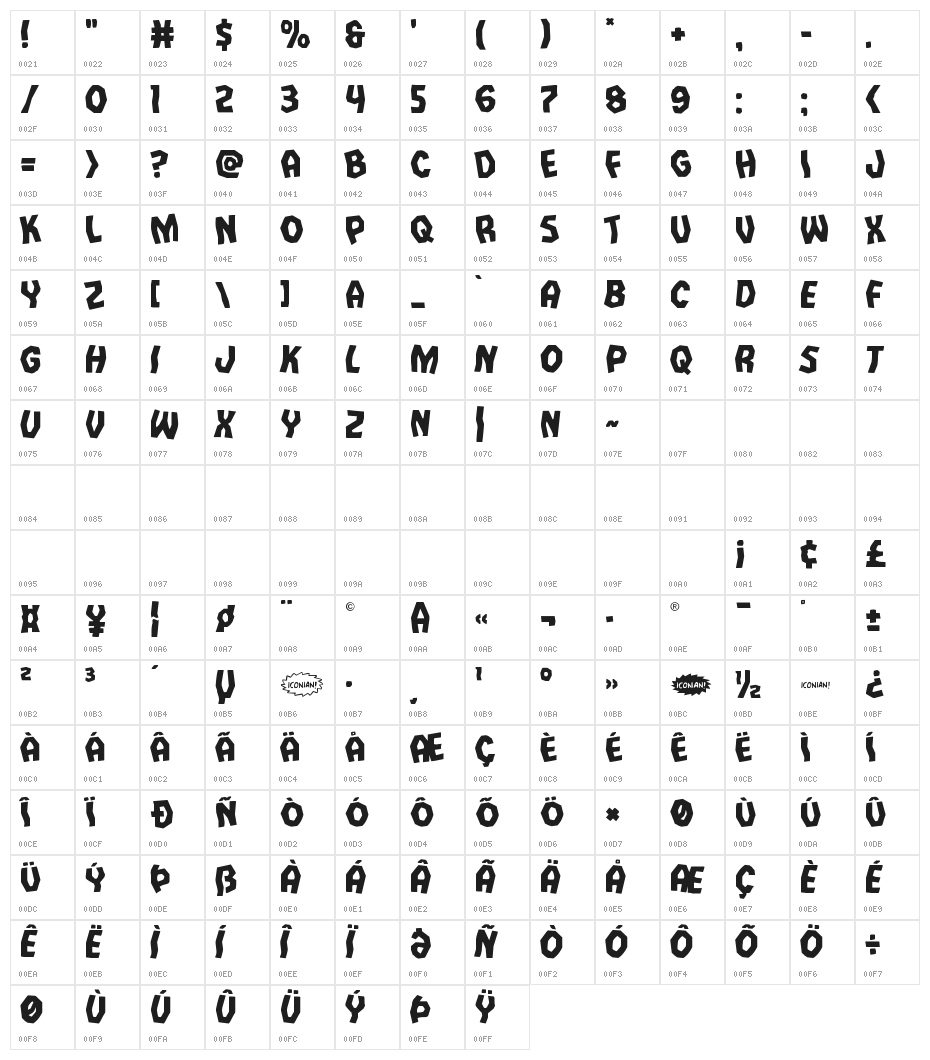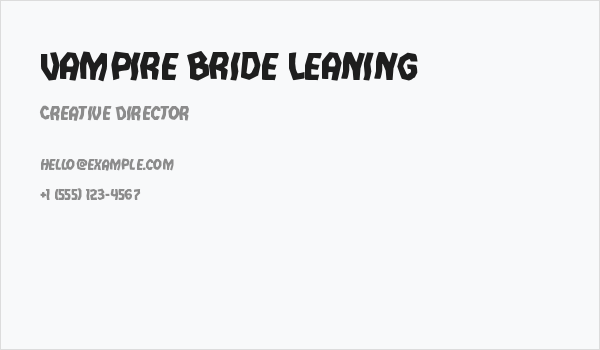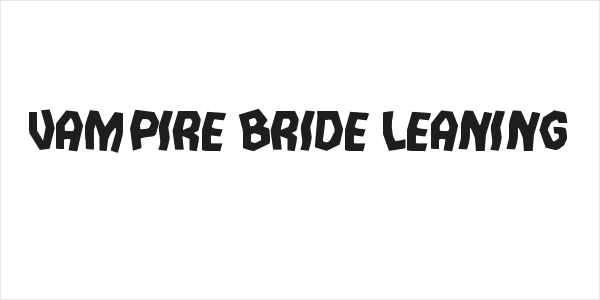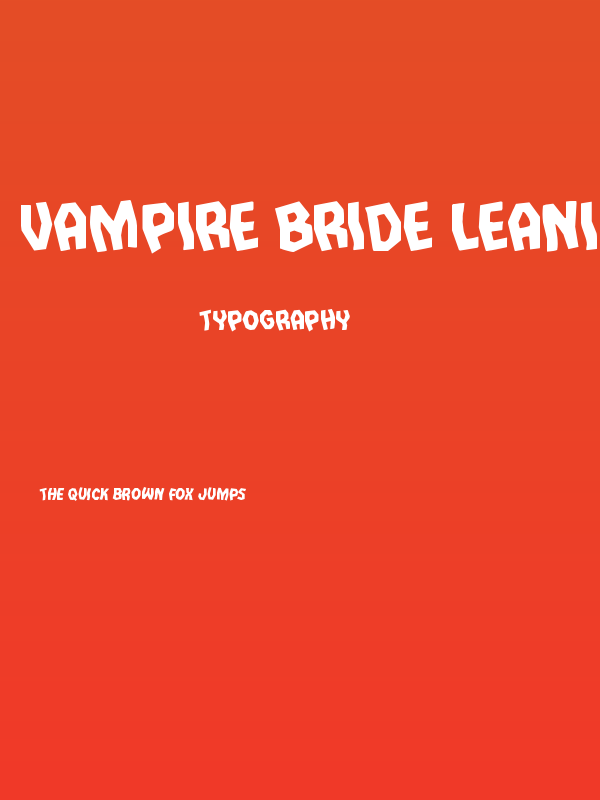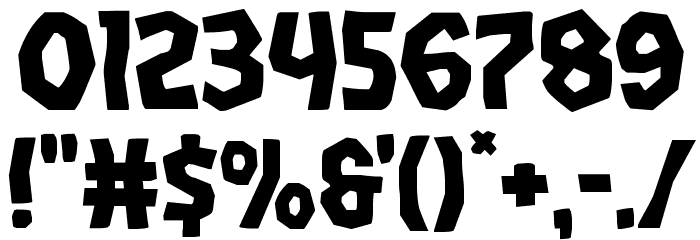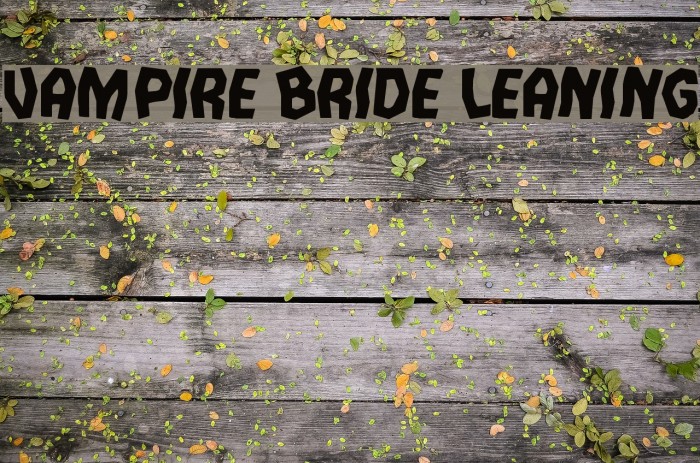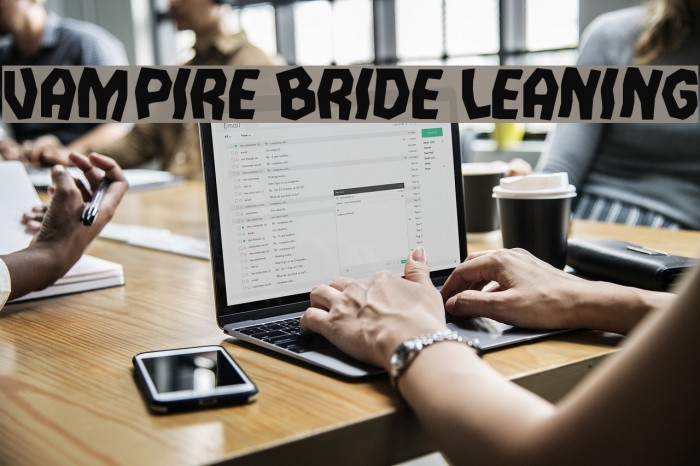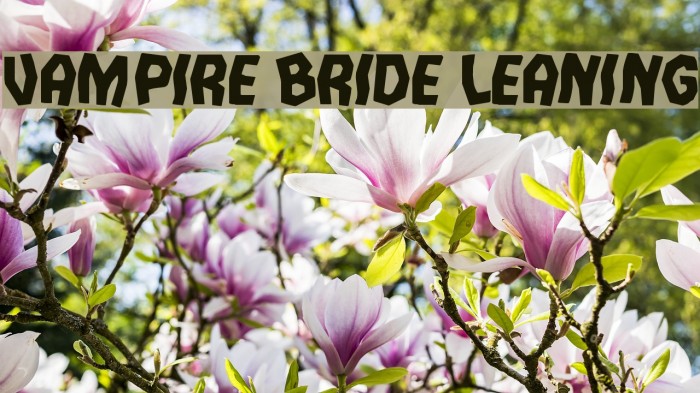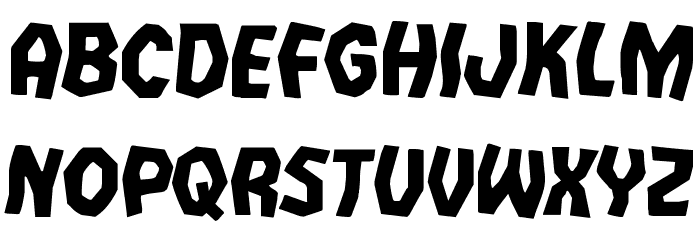
Vampire Bride Leaning Font
Vampire Bride Leaning Description
This font features a bold and angular design, with each character exhibiting a slightly irregular and jagged appearance. The letters are heavily stylized, creating a sense of movement and energy. The uppercase and lowercase letters maintain a consistent style, with sharp edges and a slightly condensed form. The numbers and special characters follow the same aesthetic, ensuring a cohesive look across all elements. This font's unique and edgy style makes it stand out, perfect for projects that require a bold statement.
| Proposed Projects | Ideal for horror-themed posters, Halloween invitations, edgy branding, and video game titles. |